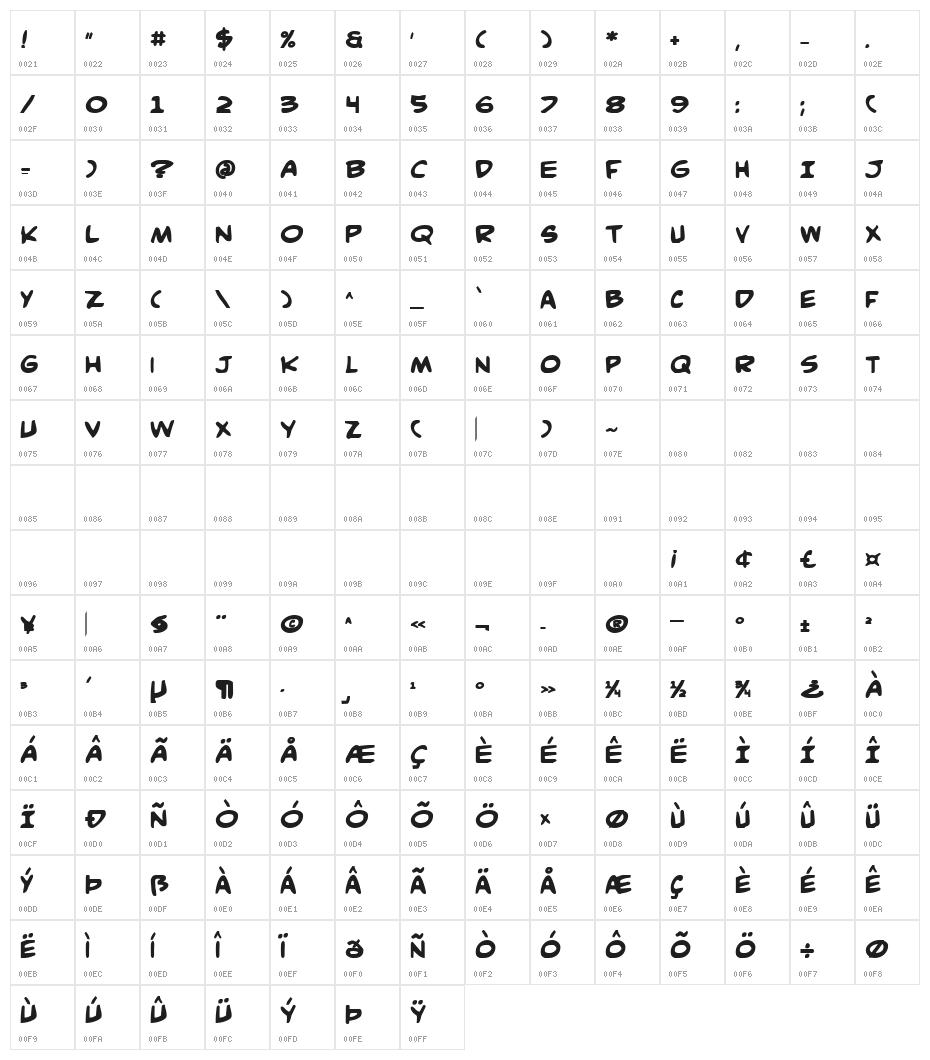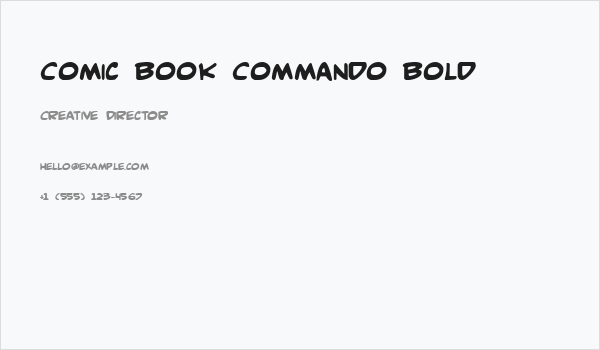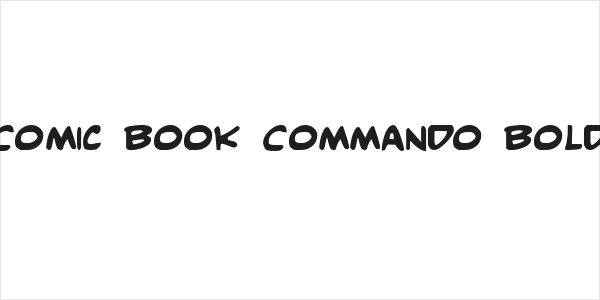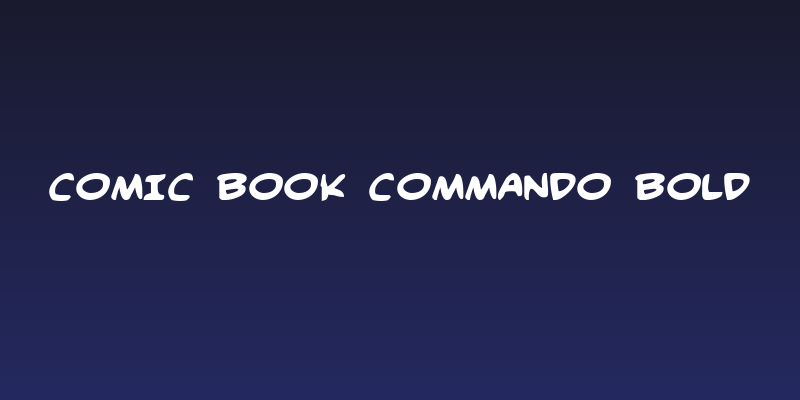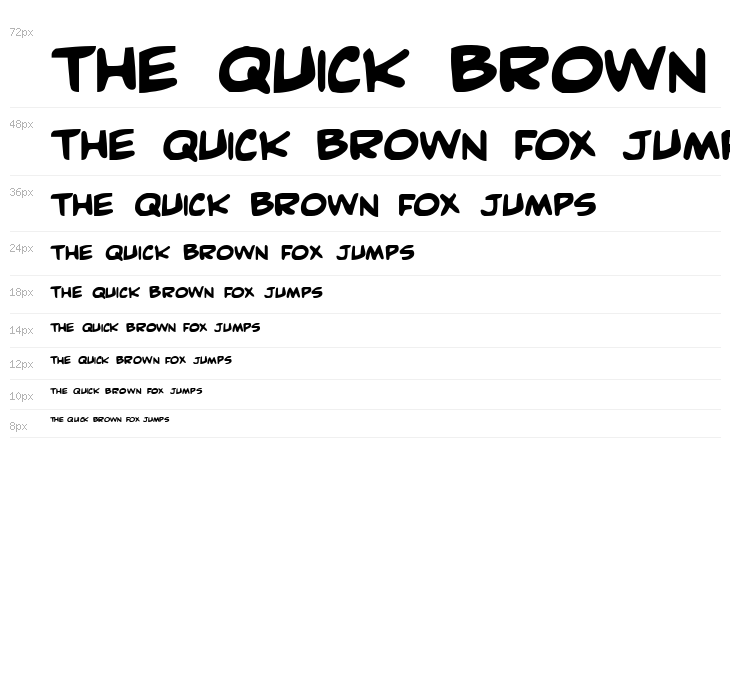
Comic Book Commando Bold Font
Comic Book Commando Bold Description
This font features bold, rounded characters with a playful and energetic style, reminiscent of comic book lettering. The letters are slightly irregular, adding a hand-drawn feel that enhances its dynamic appearance. The bold strokes and rounded edges give it a friendly and approachable look, making it ideal for projects that require a fun and informal touch. The font maintains consistent thickness throughout, ensuring readability while conveying a sense of movement and excitement. Its unique style is perfect for capturing attention and adding personality to any design.
Overall StylePlayful, Energetic, Comic
Proposed ProjectsIdeal for comic books, children's books, playful branding, posters, and video game graphics.